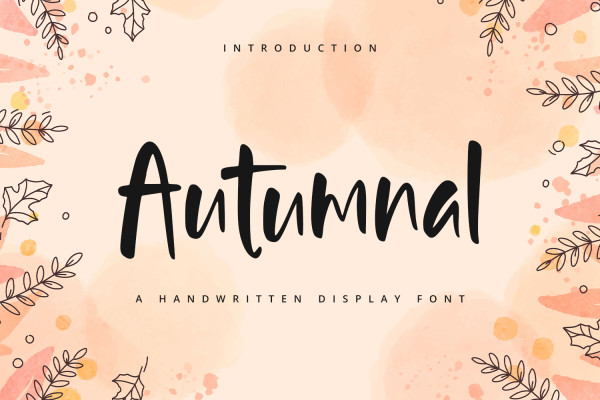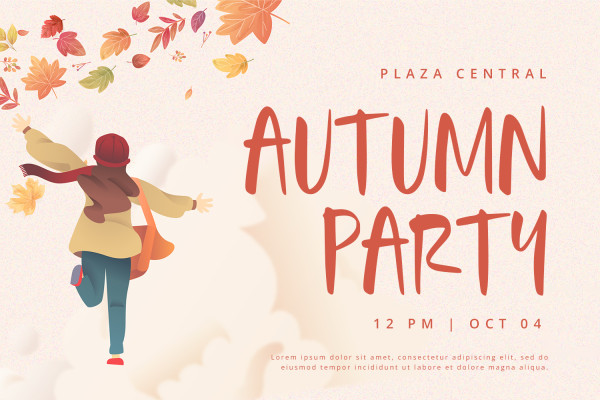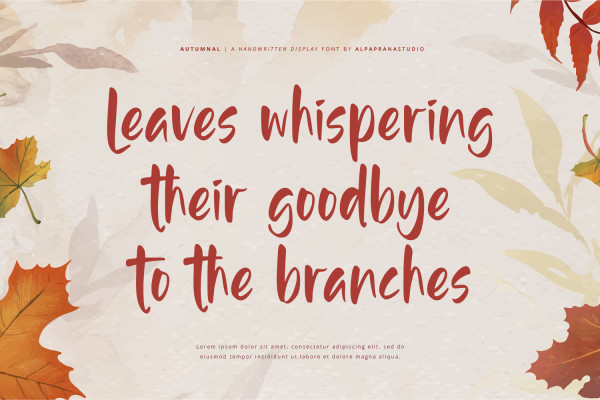
Autumnal Font
Autumnal Font is a handwritten font with modern feels. Autumnal Font will be perfectly used for Branding, Logo Design, Lettering, Logotype, Clothing, Poster, magazine, packaging, posters, shopping bags, t-shirts, book covers, photography, special events and other design project.